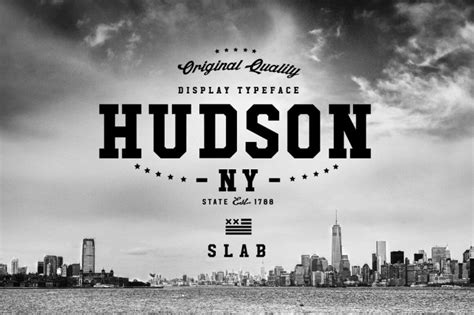
Hey design enthusiasts and font fanatics! Today, we’re diving deep into the awesome world of typography to talk about a font that’s been making waves: the Hudson NY Slab font . If you’re on the hunt for that perfect slab serif to give your projects that extra kick of personality and a touch of modern-retro charm, you’ve come to the right place, guys. We’re going to break down everything you need to know about this fantastic typeface, from what makes it so special to where you can snag a free download to spice up your design arsenal. Get ready, because we’re about to uncover why the Hudson NY Slab font is a must-have!
What’s the Big Deal About Hudson NY Slab?
So, what’s the fuss about the Hudson NY Slab font? Well, let me tell you, it’s not just another pretty face in the font world. This typeface brings a unique blend of vintage feel and contemporary sleekness that’s hard to beat. Think of it as that cool, old-school diner sign updated for the digital age. Its defining characteristic is its slab serifs – those sturdy, block-like additions at the end of strokes. But unlike some of its chunkier cousins, the Hudson NY Slab keeps things refined. It’s got a warmth and approachability that makes it incredibly versatile. Whether you’re designing a logo for a trendy coffee shop, a website for a boutique hotel, or even just a personal project that needs a bit of flair, this font has got your back. The generous x-height gives it excellent readability, even at smaller sizes, which is a huge win for web design and print alike. Plus, the slightly condensed nature of some of its variations adds a sophisticated, space-saving quality. It’s the kind of font that whispers confidence and style without shouting. It’s perfect for headlines, subheadings, and even body text if you’re going for a bold statement. The designers behind Hudson NY Slab clearly put a lot of thought into balancing its robust structure with a certain elegance, making it a truly standout choice for anyone looking to add character and legibility to their typography. It’s a font that feels both familiar and fresh, a rare and valuable combination in the design landscape today. We’ll be exploring how you can leverage these unique qualities in your next big project, so stick around!
Why Choose a Slab Serif Font?
Alright, let’s chat about why you might want to reach for a slab serif font like Hudson NY Slab in the first place. Slab serifs, for the uninitiated, are characterized by their thick, block-like serifs. They emerged in the early 19th century and were hugely popular for advertising and display purposes because, let’s be honest, they’re incredibly eye-catching! They have a boldness and strength that commands attention, making them perfect for grabbing your audience’s gaze right from the get-go. Think of old Western movie posters or vintage signage – that’s the vibe slab serifs can bring. But here’s the cool part: while they have that historical weight, modern slab serifs like Hudson NY Slab have evolved. They’ve shed some of the clunkiness and gained a sleekness that makes them surprisingly adaptable. They can evoke a sense of reliability, tradition, and robustness, which is fantastic for brands that want to convey trustworthiness and a solid foundation. However, they can also be playful and contemporary, depending on the specific design and how you use them. The key benefit is their readability . Those thick serifs often provide a clear visual guide for the eye, making them excellent for headlines and short blocks of text. They offer a fantastic alternative to standard sans-serifs or traditional serifs when you want something with more personality but still need it to be clear and easy to digest. Plus, they add a unique texture and visual interest to your designs. When you use a slab serif, you’re not just choosing a letterform; you’re choosing a feeling, a style, and a statement. They bridge the gap between the formality of serifs and the straightforwardness of sans-serifs, creating a category all their own. So, if you’re looking to add some serious character and ensure your message cuts through the noise, a well-chosen slab serif is definitely worth considering, and Hudson NY Slab is a prime example of this versatile category done right. It’s about making a strong impression while maintaining clarity – a win-win for any designer.
Tips for Using Hudson NY Slab Effectively
So, you’ve downloaded the Hudson NY Slab font – awesome! Now, how do you make sure it shines in your projects? It’s all about strategic usage, guys. Let’s talk about making this font work for you.
• Headline Hero: This is where Hudson NY Slab truly excels. Its strong character makes it perfect for grabbing attention. Use it for your main titles, subheadings, or call-to-action buttons. The bold serifs will make sure your key messages don’t get lost in the visual noise. Don’t be afraid to go big and bold with this one!
• Pairing Power: While Hudson NY Slab is a star, it often looks even better when paired with a complementary font. Consider pairing it with a clean, simple sans-serif font (like Open Sans, Lato, or Montserrat) for body text. This creates a beautiful contrast – the robust slab serif for impact and the clean sans-serif for readability and a touch of neutrality. Avoid pairing it with other overly decorative fonts, as it can get messy quickly. The goal is harmony, not a font battle!
• Consider the Mood: Think about the vibe you’re going for. Hudson NY Slab can lean towards vintage, modern, rustic, or even a bit industrial. Adjust your other design elements – colors, imagery, layout – to reinforce the mood you want to convey. A warm, earthy color palette might enhance its rustic charm, while a monochrome scheme could emphasize its modern edge.
• Spacing is Key: Pay attention to kerning (the space between specific letter pairs) and tracking (overall letter spacing). Slab serifs can sometimes feel a bit tight or too loose depending on the letters. Fine-tuning the spacing can make a huge difference in both readability and visual appeal, especially at larger sizes.
• Less is More (Sometimes): While Hudson NY Slab is versatile, overusing it can dilute its impact. Use it strategically for maximum effect. Reserve it for the elements that need the most visual punch. If your entire design is in Hudson NY Slab, it might lose its distinctiveness. Balance it with negative space and other design elements.
• Context Matters: Is it for a bakery logo? A tech startup? A wedding invitation? The context of your project will dictate how you use the font. For a bakery, you might emphasize its warm, inviting qualities. For a tech company, you might focus on its solid, reliable structure with a modern twist. Tailor its application to fit the brand’s personality.
By keeping these tips in mind, you can ensure that the Hudson NY Slab font not only looks great but also effectively communicates your message and enhances the overall aesthetic of your design. It’s a tool, and like any good tool, knowing how to wield it properly is crucial for achieving fantastic results. Experiment, play around, and see what amazing things you can create!
Remember, typography is a powerful communication tool. The fonts you choose can set the tone, convey emotion, and influence how your audience perceives your message. So, whether you’re designing a website, a brochure, a social media graphic, or anything else, take the time to select your fonts thoughtfully. Play with different styles, experiment with pairings, and always consider the context. The Hudson NY Slab font is a great starting point, a solid choice that brings both character and clarity. But let it be the gateway to a broader exploration of the amazing world of type. Keep learning, keep designing, and most importantly, have fun with it! Your creativity knows no bounds when you have the right tools and the willingness to explore.